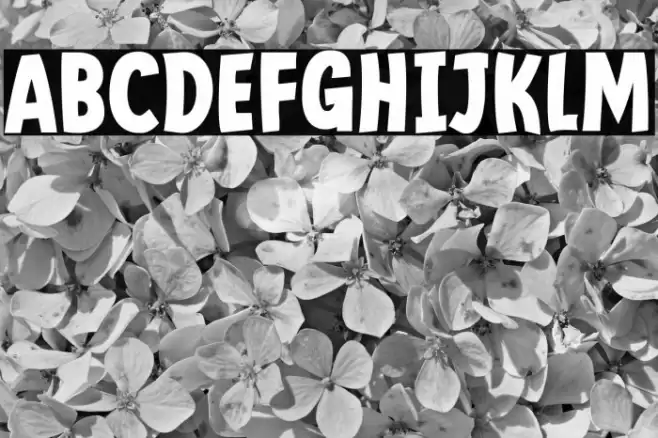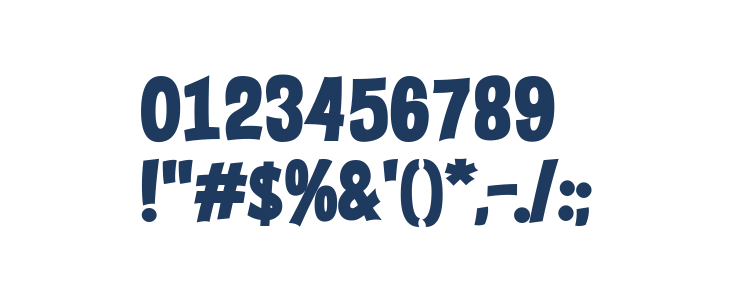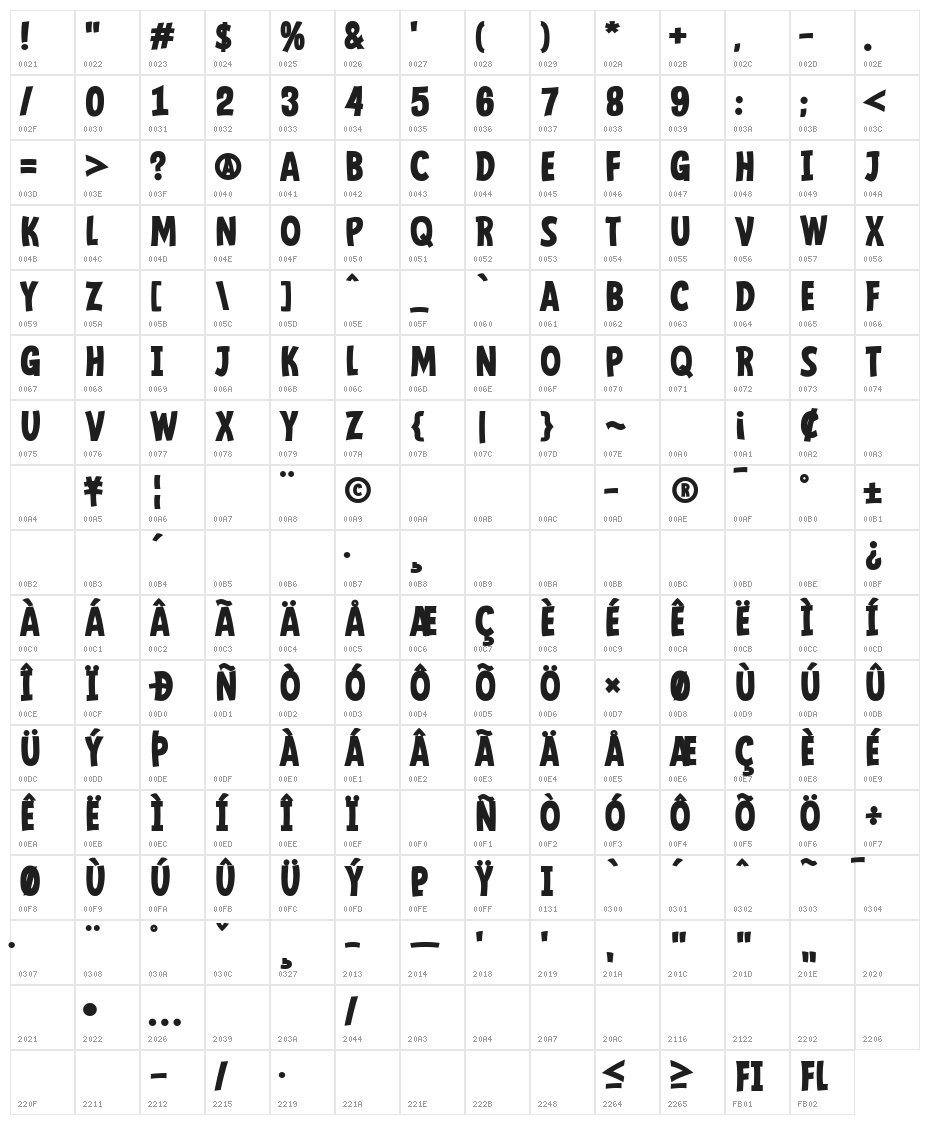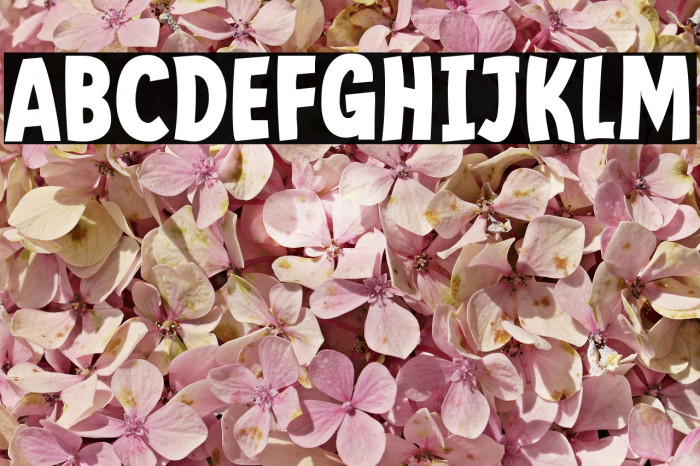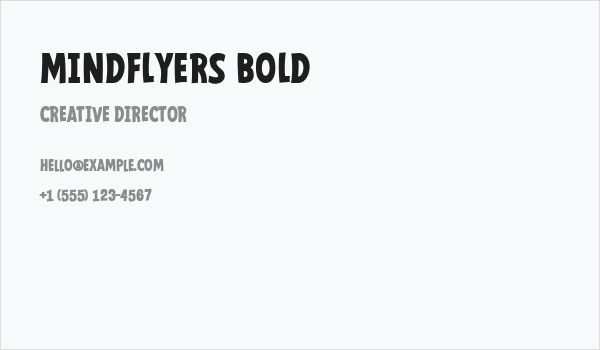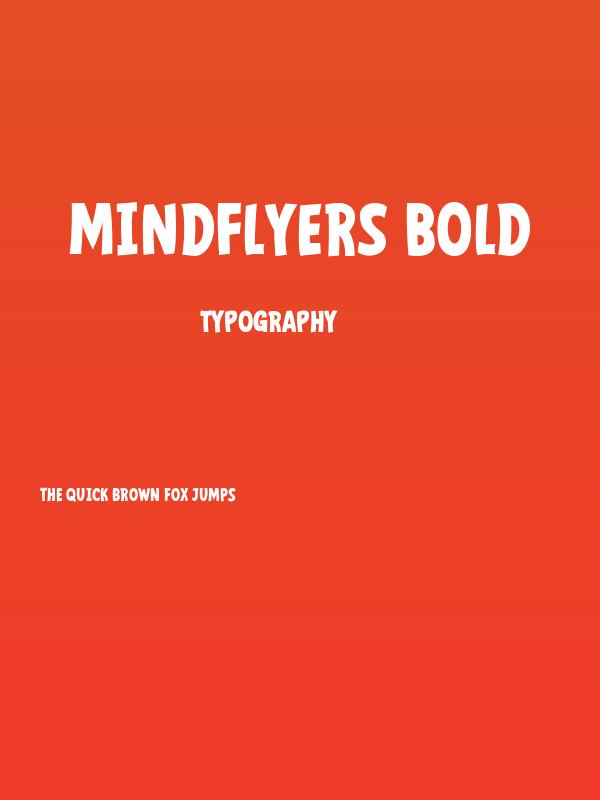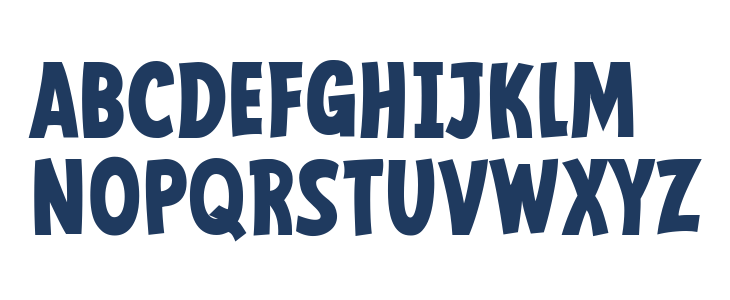
Mindflyers Bold Font
Mindflyers Bold Description
This bold and playful font features thick, rounded characters with a slightly irregular and whimsical appearance. The uppercase and lowercase letters maintain a consistent weight, creating a sense of uniformity despite their quirky design. The numbers and special characters are equally bold, ensuring readability and impact. The font's style is reminiscent of hand-drawn lettering, giving it a friendly and approachable feel. Its boldness makes it stand out, while the rounded edges soften its overall look, making it suitable for a variety of creative applications.
A bold, playful font with rounded, hand-drawn characters from Cartoon fonts.
- Proposed Projects: Ideal for children's books, posters, playful branding, and creative advertisements.
- Overall Style: Playful, Whimsical